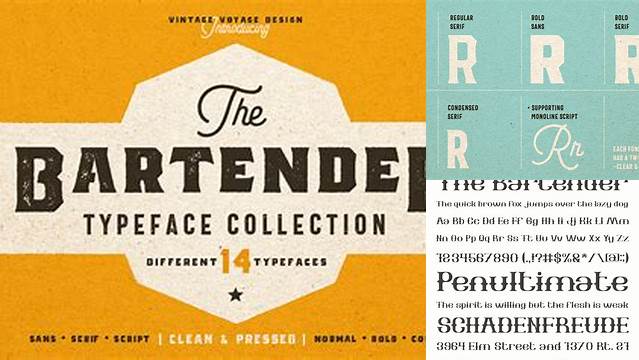
Are you looking to add a touch of vintage charm and sophisticated elegance to your design projects? Look no further! The Bartender Condensed Serif Press Font might just be the perfect typeface to elevate your creative endeavors. This font, characterized by its condensed form, serif details, and a subtle letterpress effect, exudes a classic yet contemporary appeal.
What is the Bartender Condensed Serif Press Font?
Before diving into the details of how to download and use it, let's understand what makes the Bartender font so special. The Bartender Condensed Serif Press Font is a typeface designed with a specific aesthetic in mind. Its condensed nature allows for efficient use of space, making it ideal for headlines, titles, and other display purposes. The serifs add a touch of traditional elegance, while the letterpress effect gives it a slightly distressed, vintage look. This combination of features makes it versatile for a wide range of design applications.
When you think of fonts that balance modern needs with classic aesthetics, the Bartender font truly stands out. Its condensed form is not just about saving space; it’s about creating a visual impact that draws the eye. The serifs, those little feet at the end of each stroke, lend a formal touch, making it suitable for projects that need to convey authority and trustworthiness. And then there's the letterpress effect – a subtle texture that mimics the look of old-fashioned printing presses. This effect adds depth and character, making the font feel more tactile and real. Imagine using this font for a vintage-inspired poster, a sophisticated restaurant menu, or a stylish magazine layout. The possibilities are endless!
But what truly sets The Bartender Condensed Serif Press Font apart is its adaptability. While it excels in display settings, it can also be used effectively in shorter blocks of body text. The key is to use it sparingly and strategically. For example, you might use it for subheadings or callouts to add visual interest and hierarchy to your design. In a world where digital design often feels sterile and impersonal, fonts like Bartender offer a way to inject warmth and personality. They remind us of a time when craftsmanship and attention to detail were highly valued. So, whether you're a seasoned designer or just starting out, consider adding the Bartender Condensed Serif Press Font to your toolkit. It might just be the secret ingredient you need to take your designs to the next level.
Key Features of the Bartender Font
Condensed Design: The narrow letterforms maximize space and create a strong visual impact. Its condensed design is particularly useful in headlines and titles.
Serif Details: The classic serifs add a touch of elegance and formality.
Letterpress Effect: The subtle texture gives the font a vintage and tactile feel.
Versatility: Suitable for headlines, titles, logos, and short blocks of text. The versatility allows it to use in many design projects.